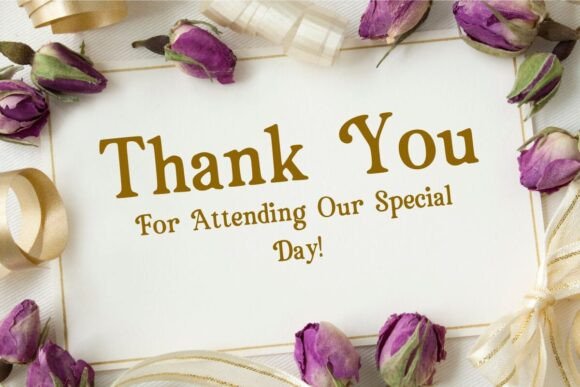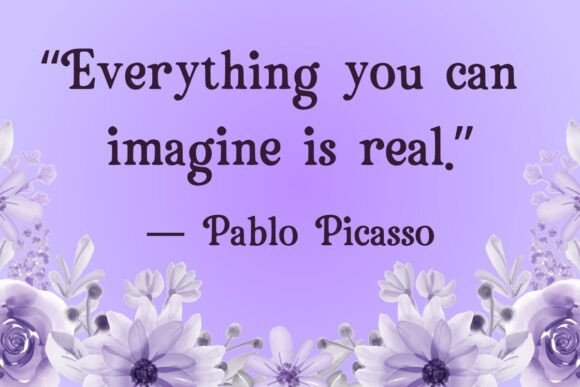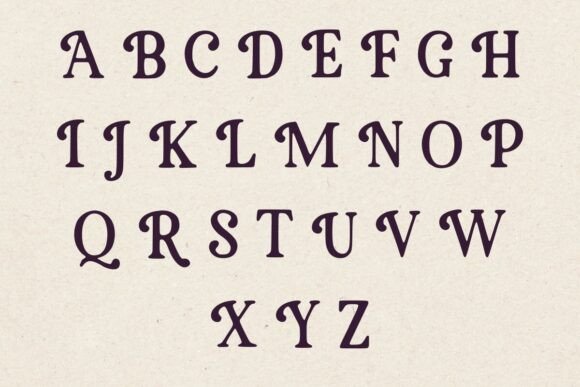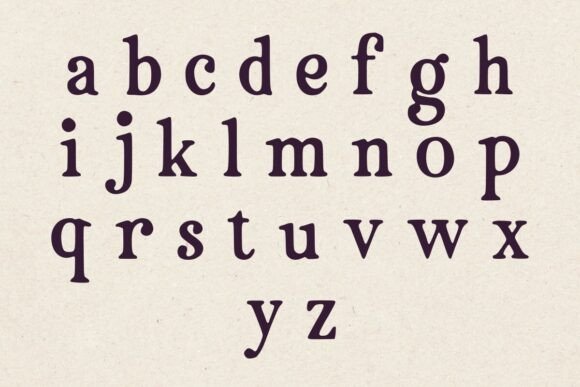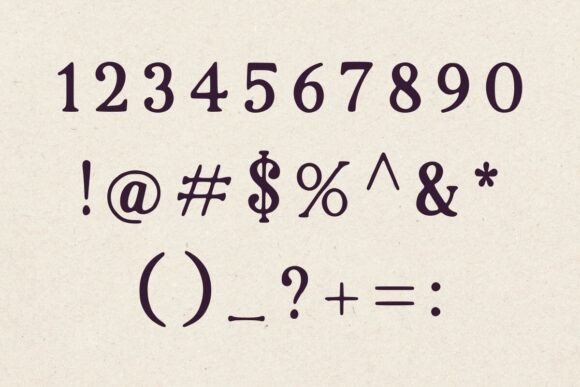
Introduction to Regency Serif Font
Have you ever found yourself lost in the world of typography, searching for the perfect font to elevate your creative project? Perhaps you’re designing a wedding invitation, or crafting a luxury brand identity. Whatever the task, the right font can make all the difference. As designers, we know the value of a well-chosen typeface – it can bring an air of sophistication, convey a sense of high quality, and leave a lasting impression on our audience.
One such font that has captured the hearts of designers is the Regency Serif Font. With its refined and elegant curves, this serif font exudes a touch of vintage charm, making it an ideal choice for creative projects that demand a timeless beauty.
Whether you’re looking for a free download or a design resource to take your projects to the next level, Regency Serif Font is an excellent choice. Its versatility and modern twist make it a valuable asset for designers seeking to create stunning visuals with a transparent background.
Key Features of Regency Serif Font
- High-quality design suitable for a wide range of creative projects, including book covers, magazine layouts, and advertising materials.
- Features a classic, elegant serif style with transparent background, allowing for easy layering and customization.
- Unique characteristics include its classic feel, elegant lines, and subtle flair, making it an excellent choice for high-end creative projects.
- Can be easily scaled up or down to suit various design needs, from small text to large headlines.
Honest Review: Regency Serif Font
As a designer, I’m always on the lookout for high-quality fonts that can elevate my creative projects. Recently, I had the chance to work with the Regency Serif Font, and I must say it’s been a game-changer.
- ✨ Elegant and sophisticated design that exudes luxury and refinement
- ✨ Perfect for creating a vintage or classic look in your designs
While the Regency Serif Font is an excellent choice for many design projects, there are a few limitations to consider.
- ⚠️ May not be suitable for modern or minimalist designs, as it can come across as too ornate
- ⚠️ Limited font weights and styles available, which may limit its versatility
Overall, I’m thoroughly impressed with the Regency Serif Font. Its high-quality design and elegant style make it a great addition to any design resource library. With a free download option available, it’s definitely worth checking out.
Regency Serif Font
The Regency Serif Font is a high-quality design resource ideal for creative projects that require a touch of elegance and sophistication. You can download the font for free and use it in various design applications.
Tips for Getting the Most Out of Regency Serif Font
Use the Regency Serif Font with a transparent background to create a clean and modern design. Experiment with different font sizes and styles to add depth and visual interest to your project.
The Regency Serif Font is ideal for wedding invitations, business cards, and other design projects that require a touch of sophistication and elegance. You can also use the font to create quotes, posters, and other creative projects.
Alternatives to Regency Serif Font
1. Playfair Display Font
Playfair Display is a high-quality serif font ideal for creative projects requiring elegance and sophistication. It’s perfect for titles, headings, and other design elements where a touch of luxury is needed. For a free download, you can find it on various design resources like Google Fonts. When used with a transparent background, it can add a sense of depth to your design.
Compared to Regency Serif Font, Playfair Display has a more ornate and luxurious feel, making it suitable for high-end designs. It’s also more versatile, allowing you to use it in a variety of settings, from weddings to luxury brands.
Q: Can I use the Regency Serif Font on a transparent background?
Yes, the Regency Serif Font is designed to work well on a transparent background. This makes it an excellent choice for designers who want to create designs with a sense of depth and dimensionality.